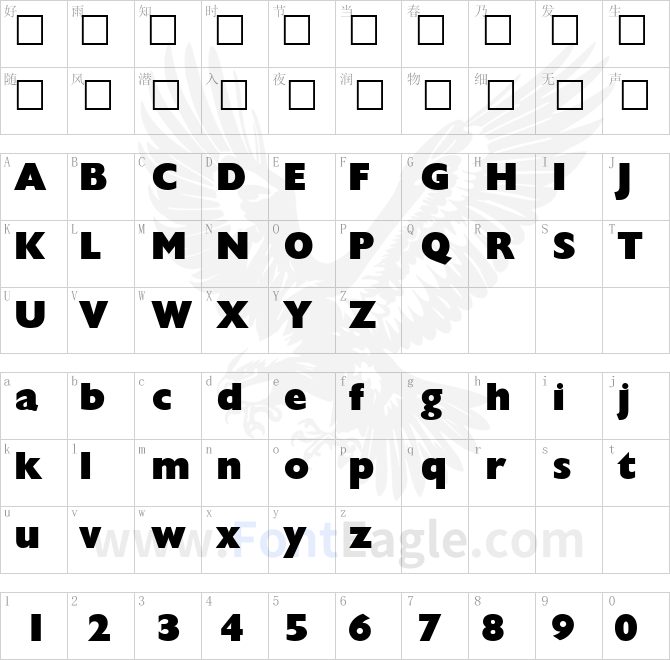
- Font name:ChantillyLH
- Font Subfamily ID:Altsys Fontographer 3.5 ChantillyLH Bold
- Font Full Name:ChantillyLH Bold
- Font Version:Altsys Fontographer 3.5 4/10/93
- Postscript:ChantillyLH-Bold